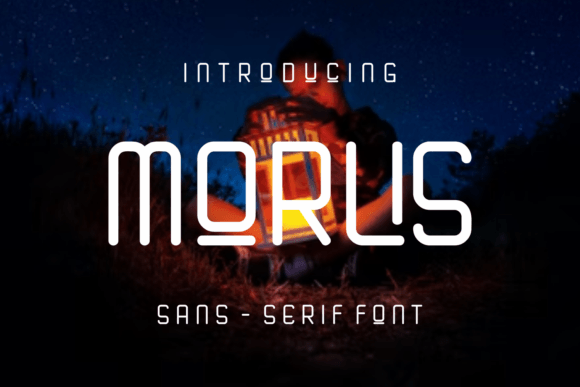
Introducing Morlis Font, the corporate world's secret weapon for presentations that command attention. Morlis's sharp lines and elegant curves exude professionalism, captivating your audience from the first slide. Its versatility knows no bounds, effortlessly elevating presentations on finance, marketing, and beyond.
Morlis Font's unique character dances across the screen, adding a touch of intrigue to data-heavy slides. Its clean and modern design ensures readability even in small font sizes, making it the perfect choice for presentations that need to convey complex information with clarity.
With Morlis Font, your PPTs will radiate confidence and innovation. Its bold strokes and subtle details create a harmonious balance that will leave a lasting impression on your audience. Embrace the power of Morlis Font today, and let your presentations soar to new heights of engagement and persuasion.
For those seeking to make a statement with their presentations, Morlis Font is the undisputed choice. Its ability to transform ordinary slides into masterpieces is truly remarkable. Don't settle for ordinary fonts; empower your PPTs with the elegance and sophistication of Morlis Font.